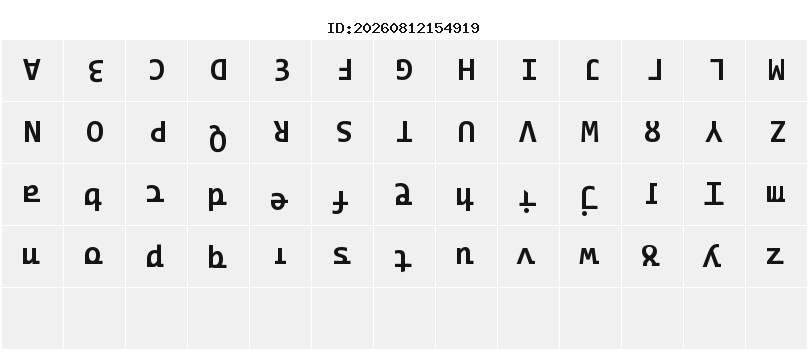
• Font Name: Ridicode
About Ridicode.ttf
Ridicode.ttf is a modern, elegant sans-serif font designed for ultimate readability and visual harmony. Perfect for branding, headlines, web design, and print materials.